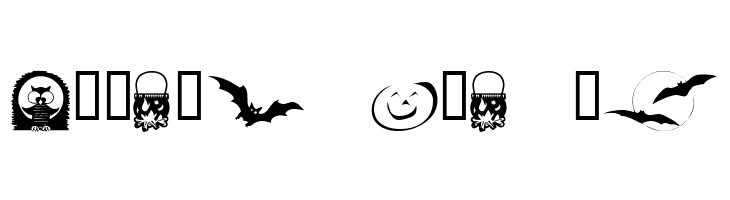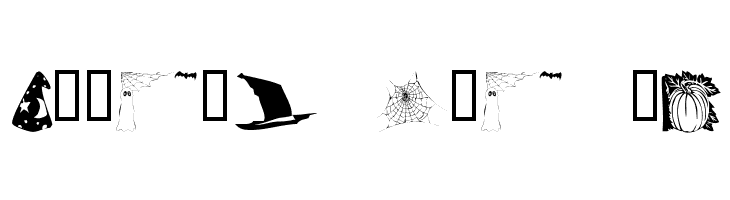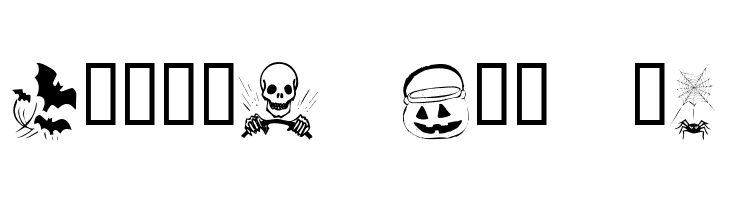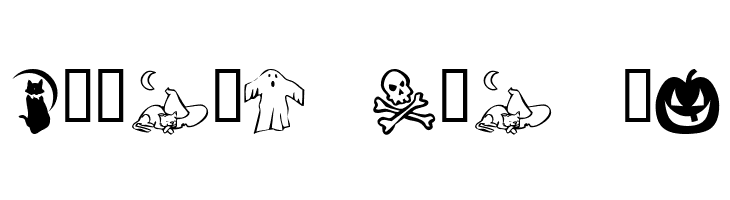
A playful, Halloween-themed decorative font with cartoonish icons.
A decorative Halloween-themed icon font with playful and spooky illustrations.
A decorative Halloween-themed font with intricate and playful icons.
Halloween-themed decorative dingbat font with playful spooky icons.
A Halloween-themed decorative font with spooky icons.
A decorative Halloween-themed font with playful and spooky illustrations.
A Halloween-themed decorative font with playful and spooky elements.
A Halloween-themed decorative font with spooky and playful elements.